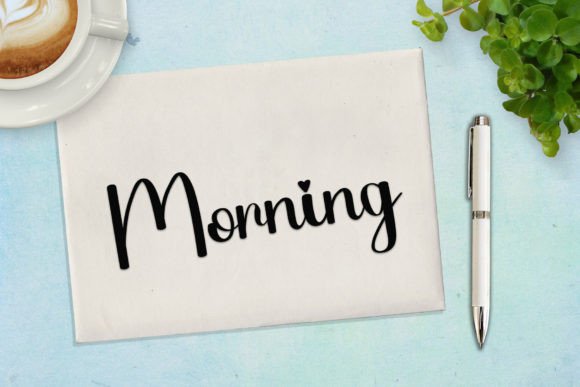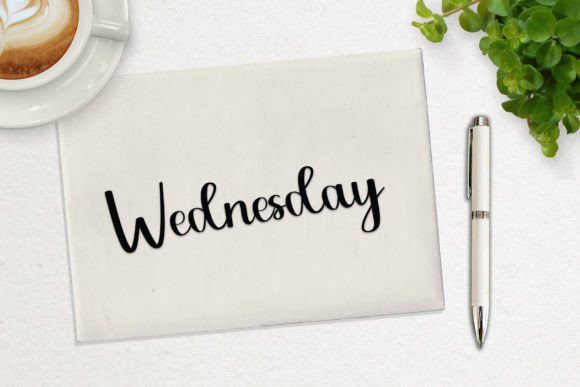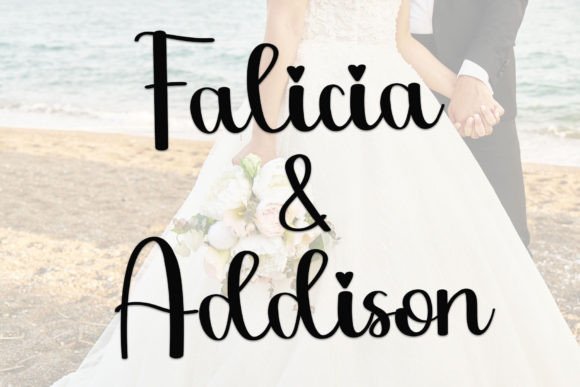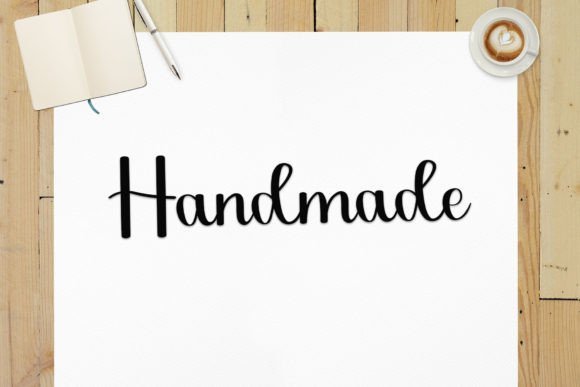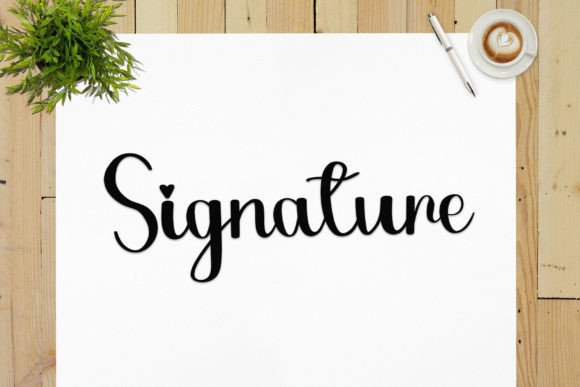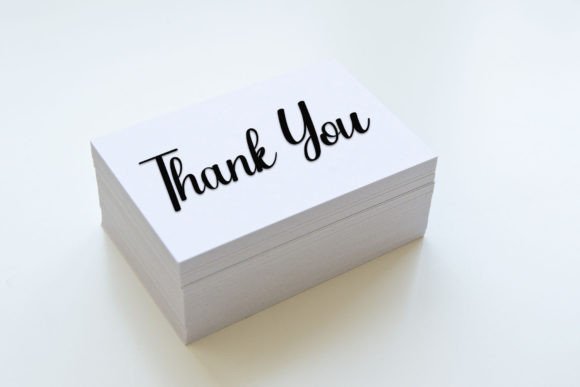
Discover the Elegance of Desert Font: A Timeless Handwritten Style
Are you on the hunt for a font that exudes elegance and sophistication? Look no further than the Desert Font, a beautiful handwritten font that is sure to capture your heart. With its incredibly distinct and timeless style, this font is perfect for designers and crafters looking to add a touch of luxury to their projects.
The Beauty of Desert Font
Desert Font is a neat and beautiful handwritten font that is described by an elegant touch. Its unique style is perfect for creating spectacular designs that stand out from the crowd. The font’s classic and timeless look makes it suitable for a wide range of projects, from wedding invitations and branding materials to packaging and digital media.
What Makes Desert Font So Special?
So, what sets Desert Font apart from other fonts? Here are a few features that make it a standout:
- Elegant and Refined: Desert Font boasts an elegant and refined style that is perfect for high-end designs.
- Unique and Distinctive: The font’s unique letterforms and flourishes make it instantly recognizable.
- Timeless Appeal: Unlike trendy fonts that quickly go out of style, Desert Font has a timeless appeal that ensures your designs will remain stylish for years to come.
- Versatile: This font can be used for a wide range of projects, from digital media to print materials.
How to Use Desert Font in Your Designs
Desert Font is incredibly versatile, making it suitable for a variety of design projects. Here are a few ideas to get you started:
- Wedding Invitations: Add a touch of elegance to your wedding invitations with Desert Font.
- Branding Materials: Use Desert Font to create a sophisticated brand identity that exudes luxury and refinement.
- Packaging Design: Add a touch of elegance to your product packaging with Desert Font.
- Digital Media: Use Desert Font to create stunning digital media, such as social media graphics and blog headers.
Tips for Getting the Most Out of Desert Font
To get the most out of Desert Font, here are a few tips to keep in mind:
- Pair it with a Simple Background: Desert Font really shines when paired with a simple background. Try pairing it with a solid color or a subtle texture.
- Experiment with Colors: Desert Font looks great in a variety of colors. Experiment with different hues and shades to find the perfect look for your design.
- Pay Attention to Kerning: Make sure to pay attention to kerning when using Desert Font. Proper kerning ensures that your text looks professional and polished.
Desert Font is a beautiful and elegant handwritten font that is perfect for designers and crafters looking to add a touch of luxury to their projects. Its unique and timeless style makes it suitable for a wide range of designs, from wedding invitations and branding materials to packaging and digital media. With its versatility and elegance, Desert Font is sure to become a favorite in your design arsenal.